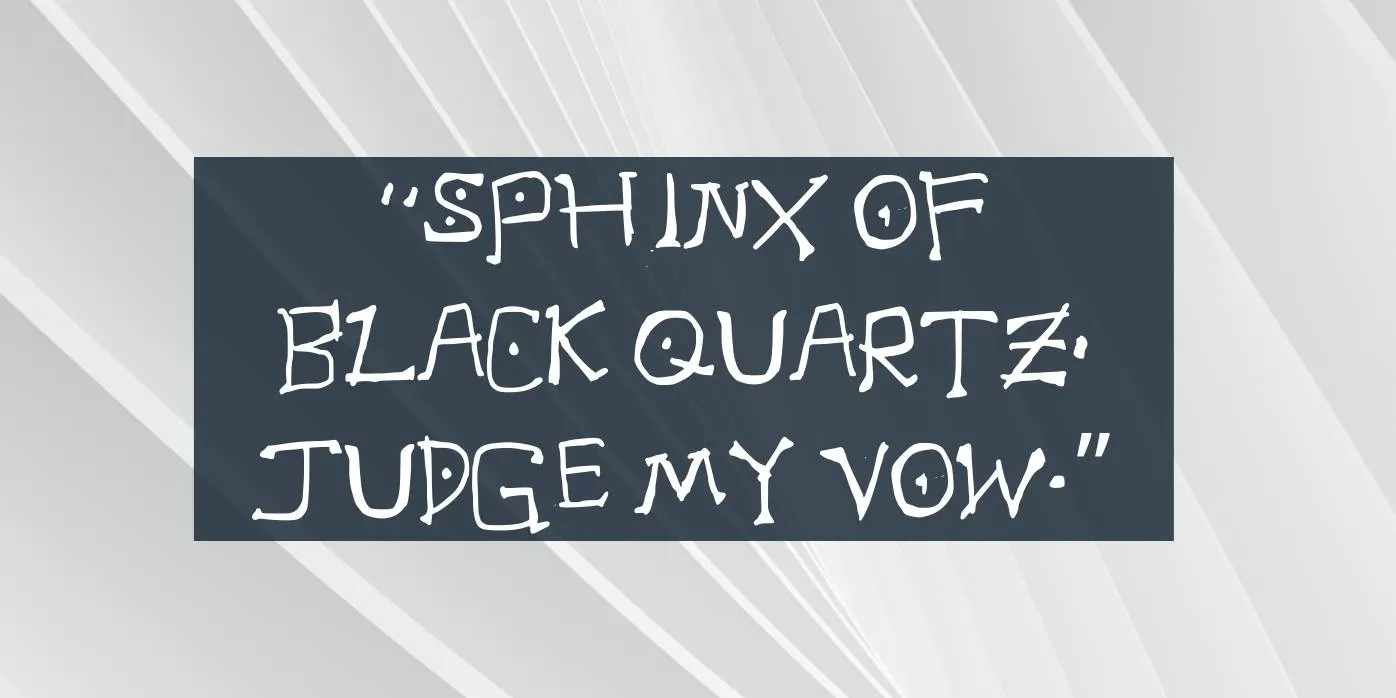
Death Note Font
Today, we are glad to present horror and amazing font family that was famous with the name Death Note Font. This classic font was designed by a very famous and elegant Rebirth Organization. This precious font belongs to the Handwritten typeface. This glorious font was released firstly in the year 2009.
This marvelous font is based on the story of a school student Who has to contain a supernatural horrible book. This astonishing font was firstly used for very popular Manga series. This attractive font is available in various unique Glyphs almost more than 69. This stylish font family contains many popular and special characters.
All of its Glyphs and special characters increase its performance. In the year 1985, this awesome font is used for famous supernatural book covers and posters. It is best used for Canva. Sketchy Font is one of the most famous and popular fonts for this cozy typeface.
A lot of manufacturers Impress with the amazing quality and keen features of this typeface. Its unique lettering is very beneficial for different designs. A great number of developers search for such type of attractive typeface that is used for their various mang series. Its copy and pastes function is most perfect and suitable in designing.